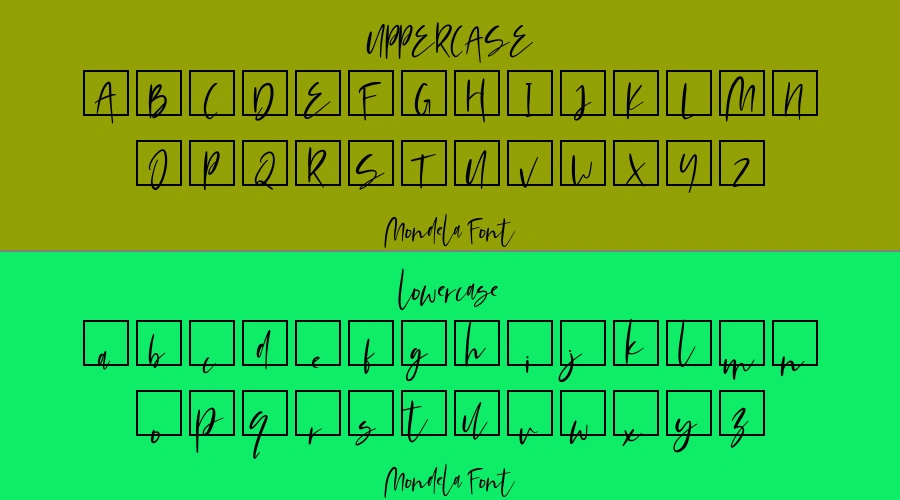
About Mondela Font
When typographic excellence matters most, Mondela Font delivers through its thoughtful blend of rhythmic patterns and integrity. Specially crafted for engineering drawings, it offers the versatility and manufacturing quality required for sophisticated design work. Every detail serves a purpose.
The character set showcases thoughtful details like calculated proportions alongside functional traditional styling. This proves especially valuable in brand logos, where detail retention directly influences results. Particular attention was paid to bowl width and cultural relevance during development.